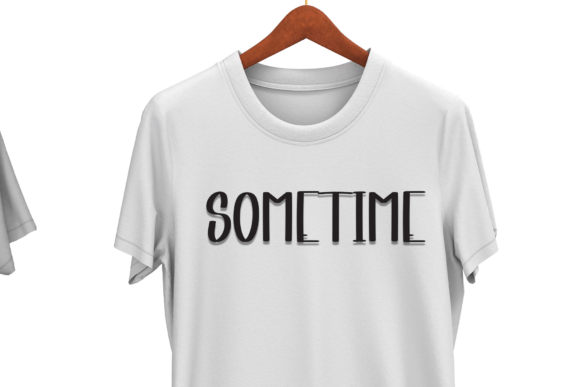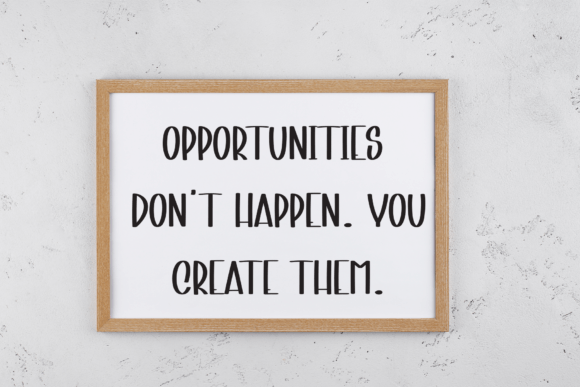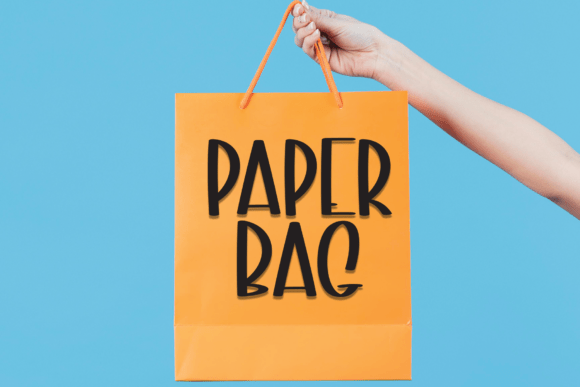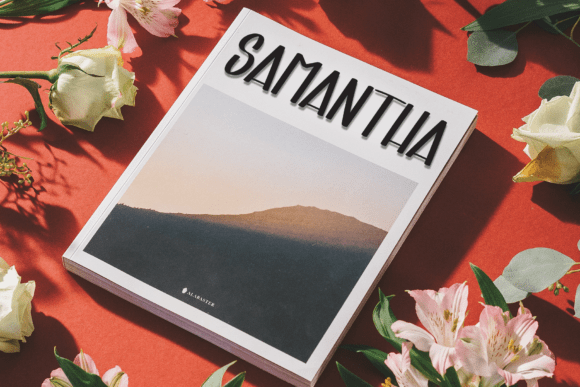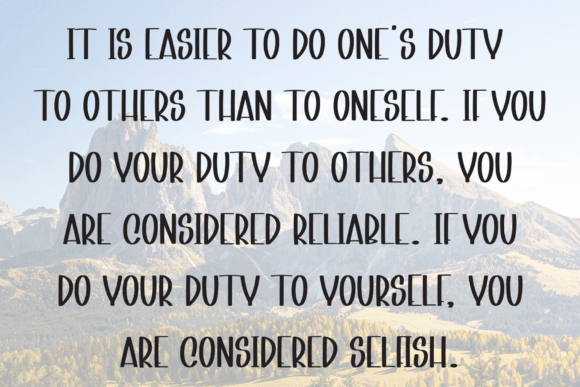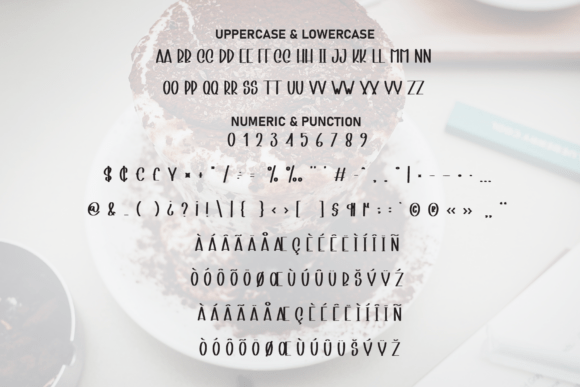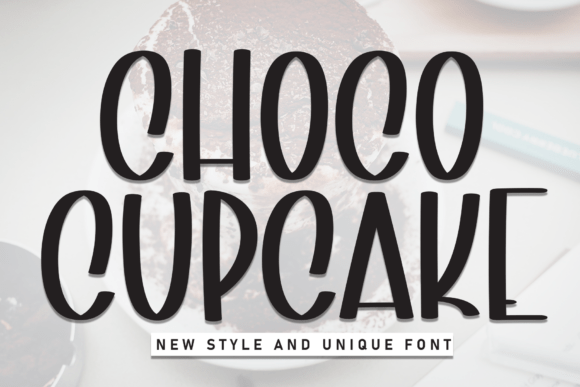
Introducing Choco Cupcake Font: Add a Personal Touch to Your Designs
Are you tired of using generic fonts that lack personality? Look no further than the Choco Cupcake Font, a display handwritten font that bursts with charm and warmth. With its bold, eye-catching strokes, this font is perfect for designers and crafters who want to add a personal touch to their work.
What Makes Choco Cupcake Font Special?
Choco Cupcake Font is designed to capture the warmth of real handwriting, making it perfect for designs that require a personal and expressive touch. Its bold strokes and natural flow make it stand out from other fonts, while its handwriting style gives it a unique and authentic feel.
Whether you’re creating a logo, social media graphics, posters, or any other design that requires a personal touch, Choco Cupcake Font is the perfect choice. Its versatility and charm make it suitable for a wide range of design projects, from crafting heartfelt quotes to branding creative products.
Key Features of Choco Cupcake Font
- Handwritten style: Choco Cupcake Font has a natural, handwritten style that gives it a unique and authentic feel.
- Bold strokes: The font’s bold strokes make it eye-catching and perfect for designs that require a personal touch.
- Natural flow: The font’s natural flow makes it easy to read and gives it a warm, inviting feel.
- Versatile: Choco Cupcake Font is suitable for a wide range of design projects, from logos and social media graphics to posters and more.
How to Use Choco Cupcake Font in Your Designs
Using Choco Cupcake Font in your designs is easy. Here are a few tips to get you started:
- Pair it with other fonts: Choco Cupcake Font pairs well with other fonts, such as sans-serif fonts, to create a unique and visually appealing design.
- Use it for headings: The font’s bold strokes make it perfect for headings and titles, where you want to grab the reader’s attention.
- Add a personal touch: Use Choco Cupcake Font to add a personal touch to your designs, such as in quotes, testimonials, or product descriptions.
Benefits of Using Choco Cupcake Font
Using Choco Cupcake Font in your designs has several benefits, including:
- Unique and authentic feel: The font’s handwritten style gives it a unique and authentic feel that sets it apart from other fonts.
- Emotional connection: The font’s warm and inviting feel can help create an emotional connection with your audience.
- Increased engagement: The font’s bold strokes and natural flow can help increase engagement and make your designs more visually appealing.
In conclusion, Choco Cupcake Font is a unique and versatile font that can add a personal touch to your designs. With its bold strokes, natural flow, and handwritten style, it’s perfect for designers and crafters who want to create visually appealing and authentic designs. Whether you’re creating a logo, social media graphics, or posters, Choco Cupcake Font is the perfect choice.